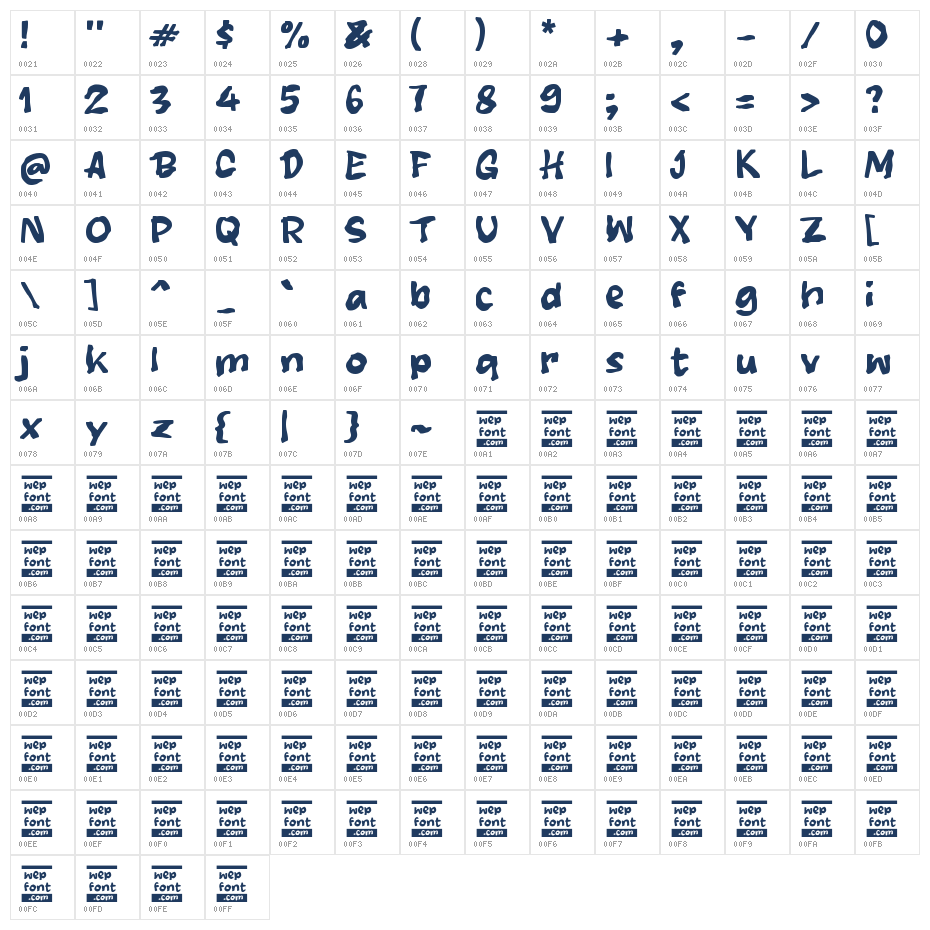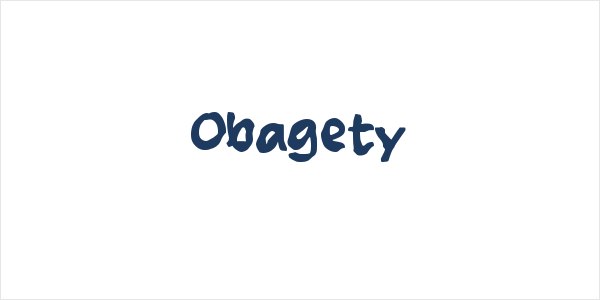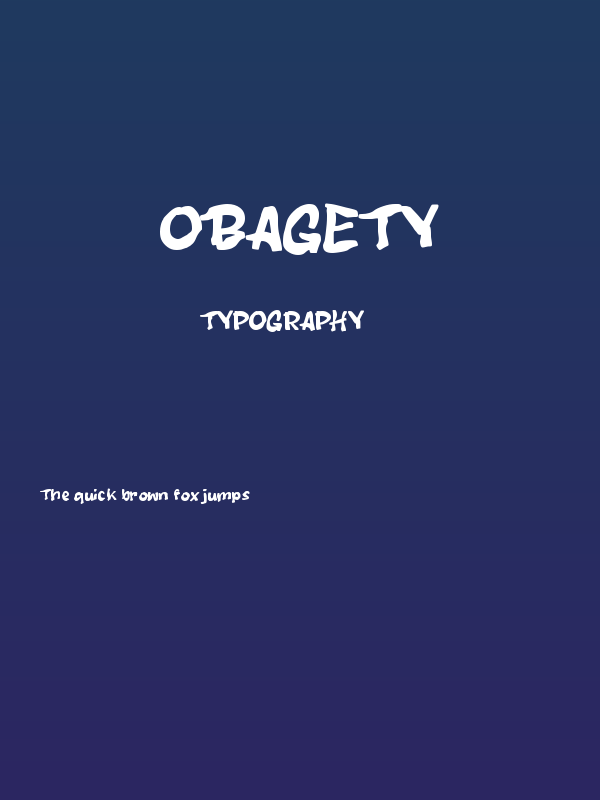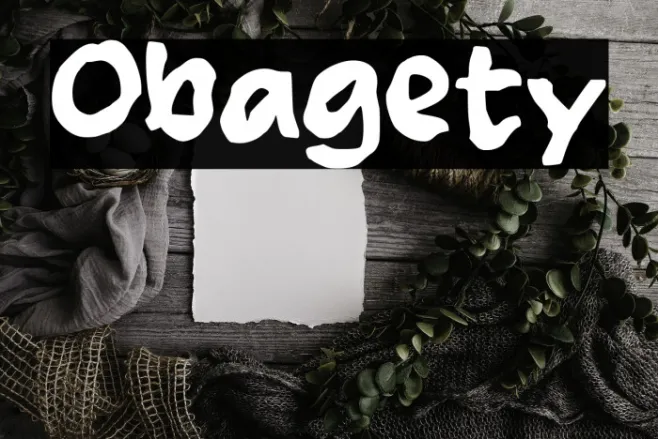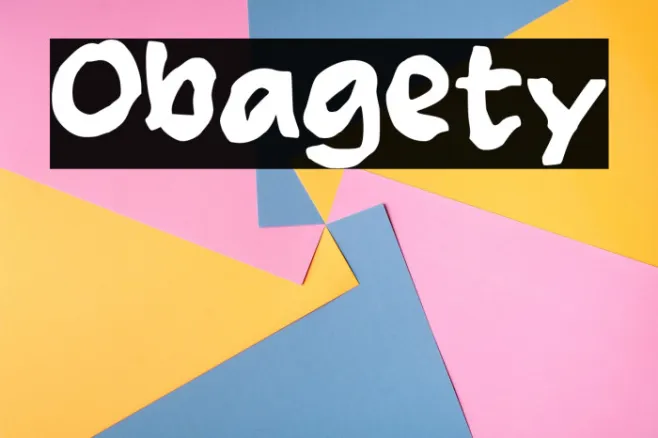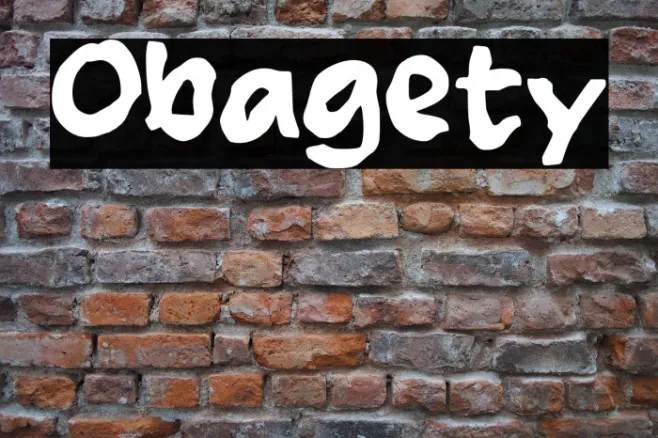
Obagety Font
Obagety Description
A playful, bold, handwritten style font with irregular, chunky strokes and a casual appearance.
| Overall Style | Casual, Playful, Handwritten |
| Use Case | Headlines, Posters, Children's books, Informal branding |